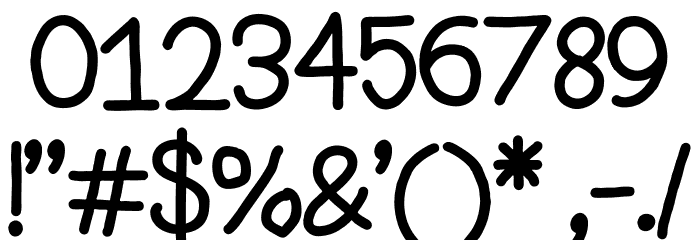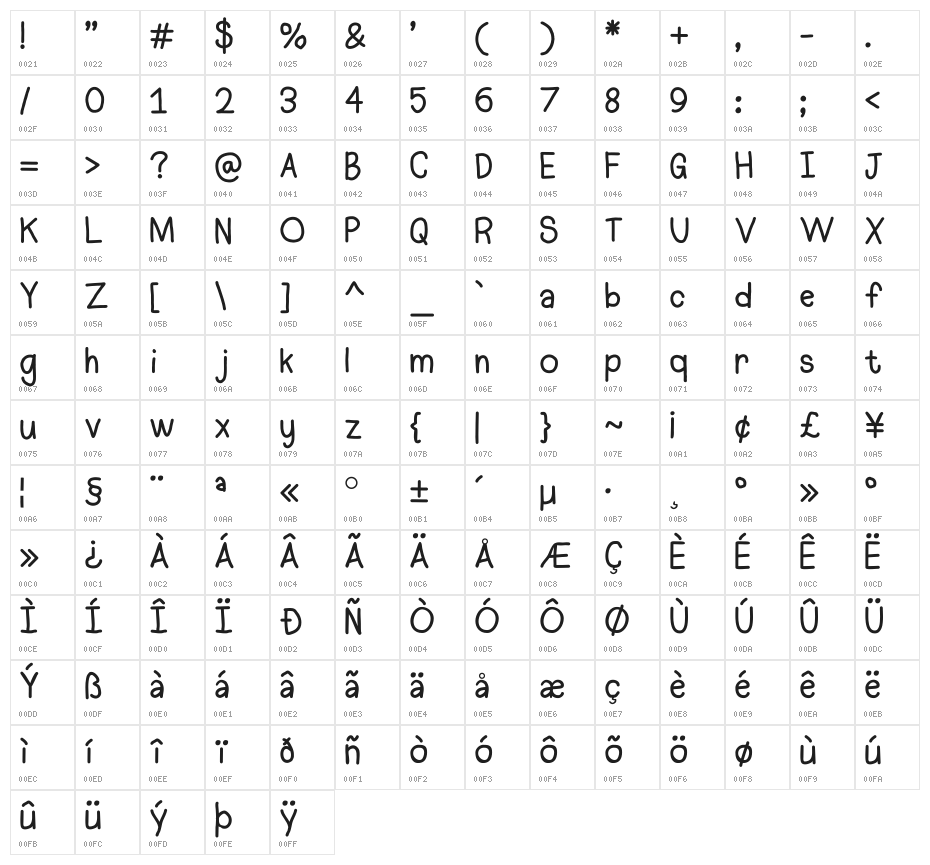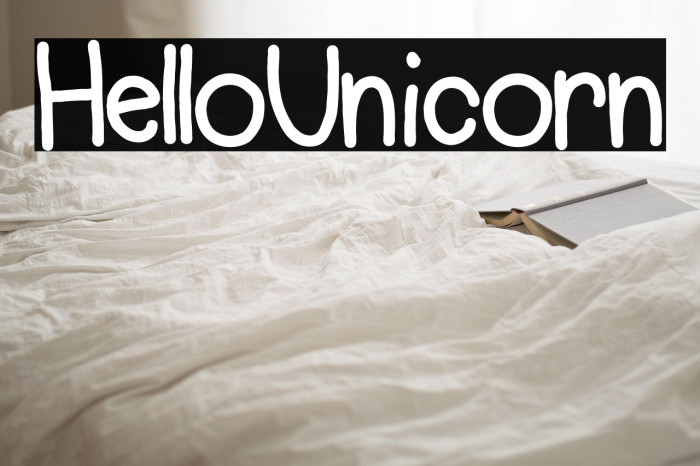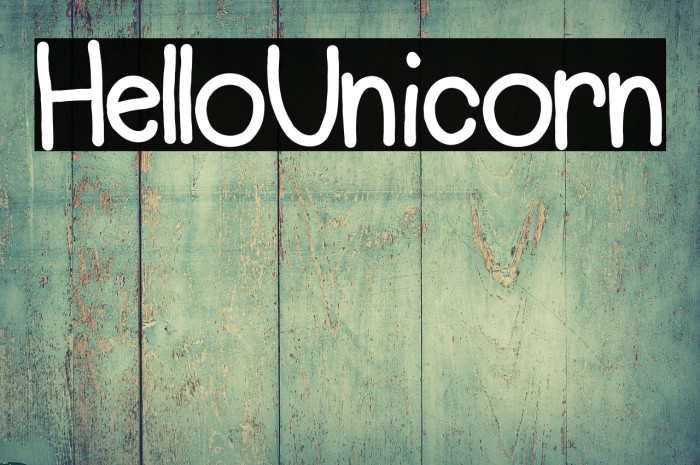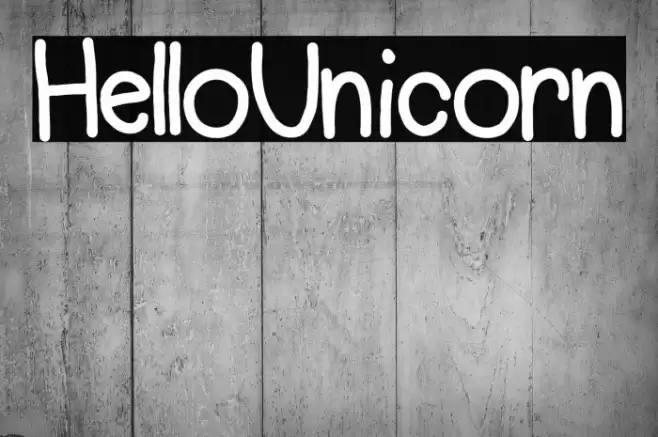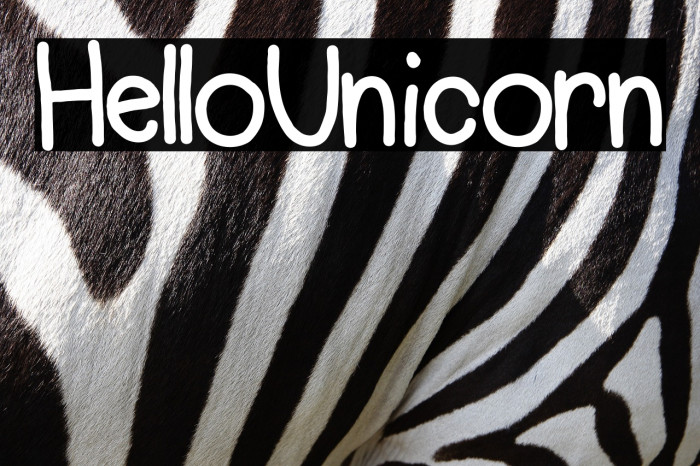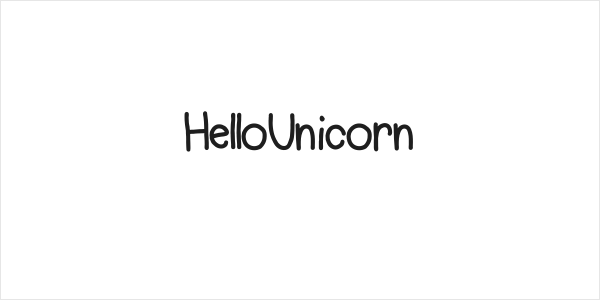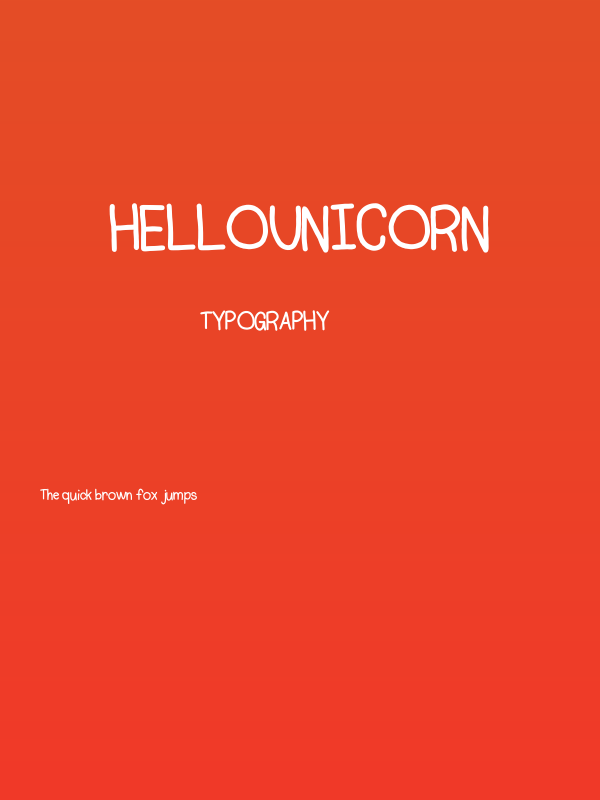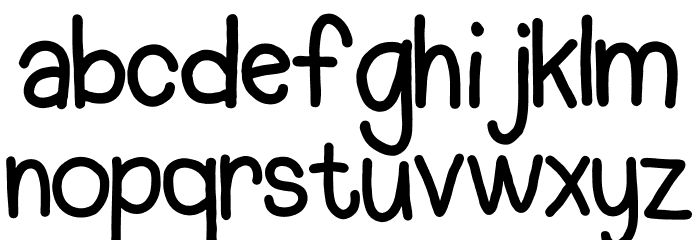
This playful and whimsical font features a handwritten style with rounded edges and a casual appearance. The characters are slightly irregular, adding a touch of personality and charm. The uppercase and lowercase letters maintain a consistent flow, while the numerals and special characters complement the overall design. Its friendly and approachable look makes it suitable for creative projects that require a personal touch.
| Proposed Projects | Ideal for children's books, greeting cards, playful branding, and social media graphics. |